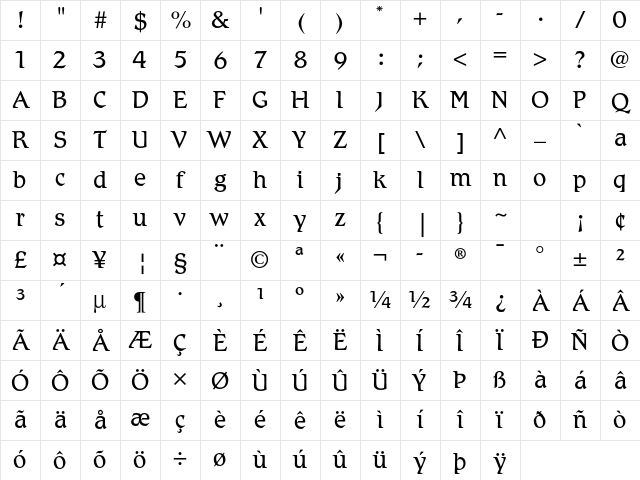
Complete Romic Std Light glyph index. Displaying only characters natively supported by Romic Std Light font.
Romic Std is a composed and adaptable typeface that performs quietly and consistently across a wide range of design contexts. Its slender proportions lend an understated elegance to any composition.